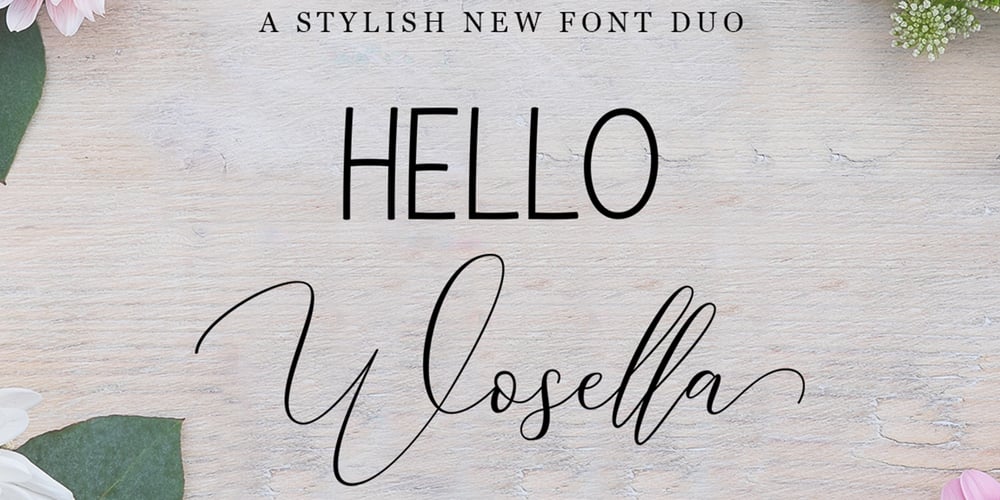
HELLO Wosella Script Font Family was designed by Imam Muhajir and published by Straight.Co. HELLO Wosella Script contains 1 styles and family package options. HELLO Wosella Duo is a modern calligraphy design, including Regular. This font is casual and beautiful with swash. Can be used for various purposes. such as logos, product packaging, wedding invitations, branding, headlines, signage, labels, signatures, book covers, posters, quotes, and more.HELLO Wosella Duo includes a change of the OpenType language style, binding and international support for most Western languages. To activate the OpenType Stylistic alternative, you need a program that supports OpenType features such as Adobe Illustrator CS, Adobe Indesign & CorelDraw X6-X7, Microsoft Word 2010 or newer versions. How to access all alternative characters using Adobe Illustrator:https://www.youtube.com/watch?v=XzwjMkbB-wQHELLO Wosella Duo is coded with PUA Unicode, which allows full access to all additional characters without having to design special software. Mac users can use the Font Book, and Windows users can use Character Map to view and copy one of the additional characters to insert into your favorite text editor / application. How to access all alternative characters, using Windows Character Map with Photoshop:https://www.youtube.com/watch?v=Go9vacoYmBwIf you need help or have questions, please let me know. I am happy to help ๐ Thank you & Congratulations on Designing!